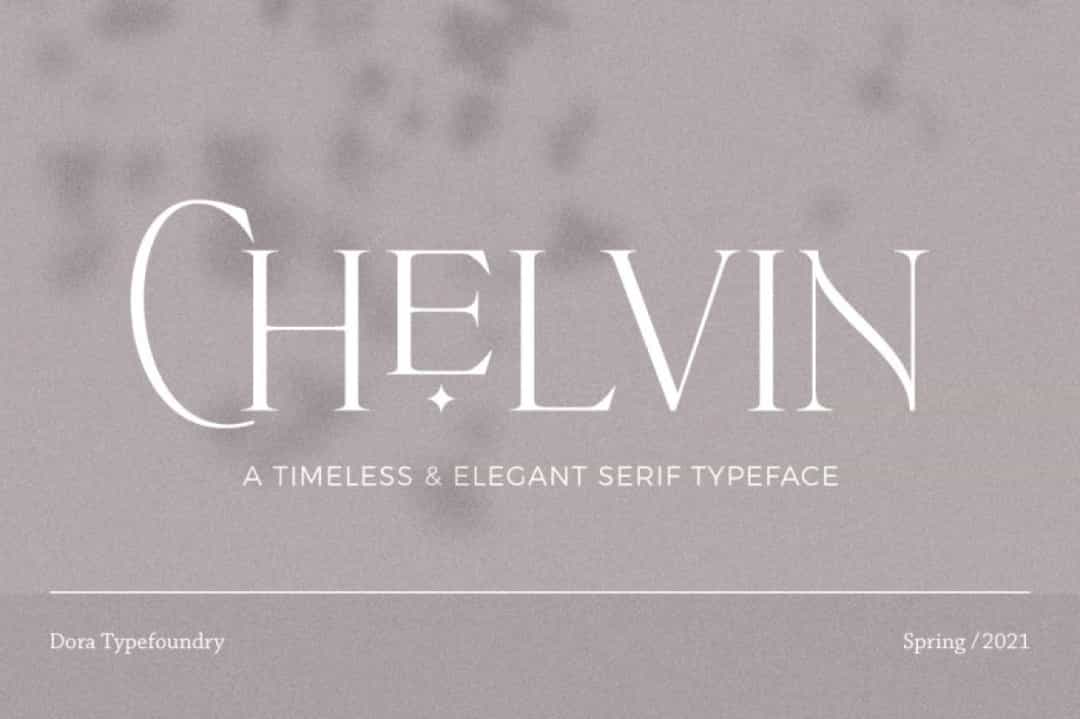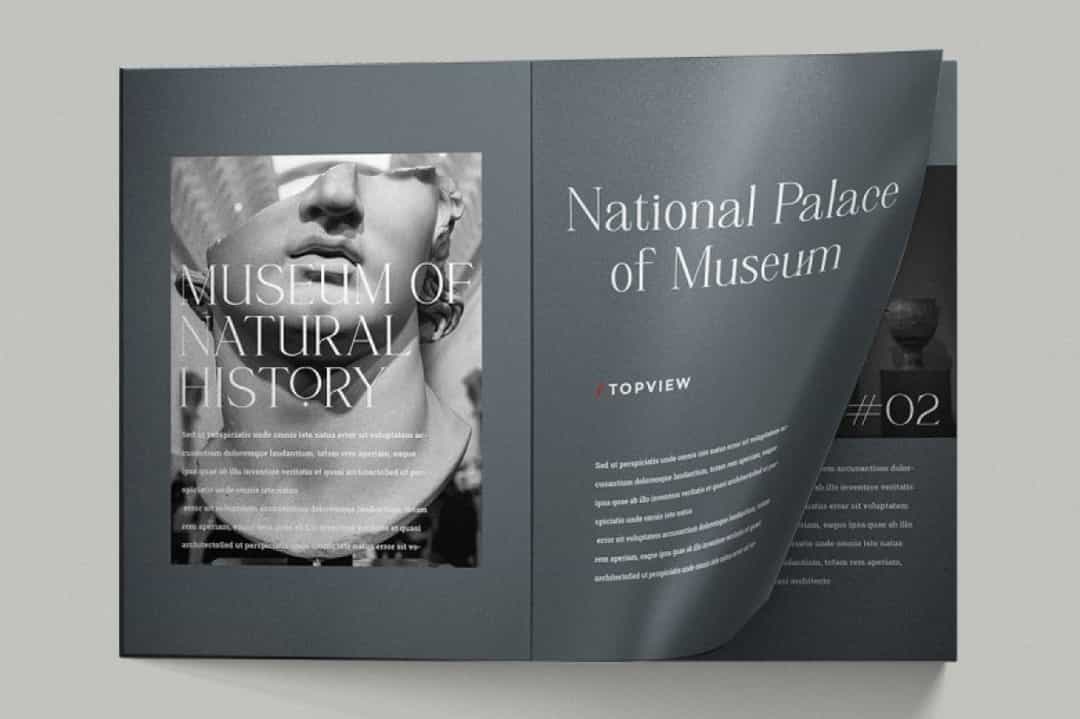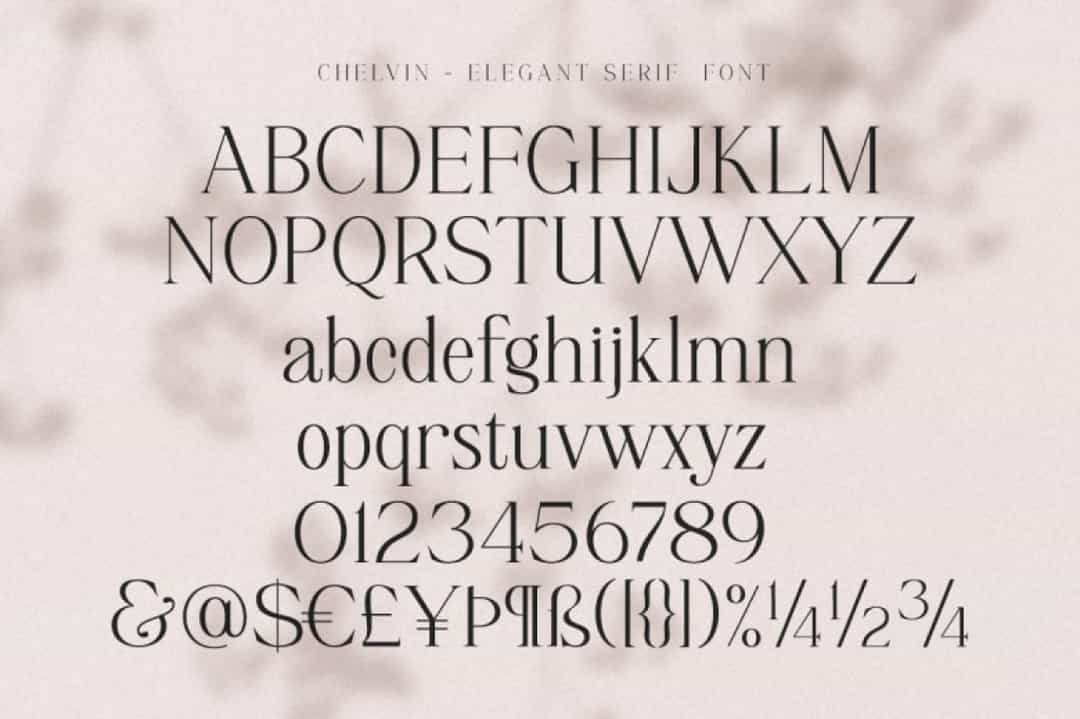
Chelvin is a powerful Neoclassical serif font family that offers stunning contrast, contemporary designs with modern flair, multiple font ligatures, multilingual support, and stunning contrast in contrast with vintage references ranging from classic to vintage and even contemporary times. Perfect for minimalist contemporary sophisticated modern styles and brands. All forms of beauty and luxurious ligatures to make this typeface perfect.